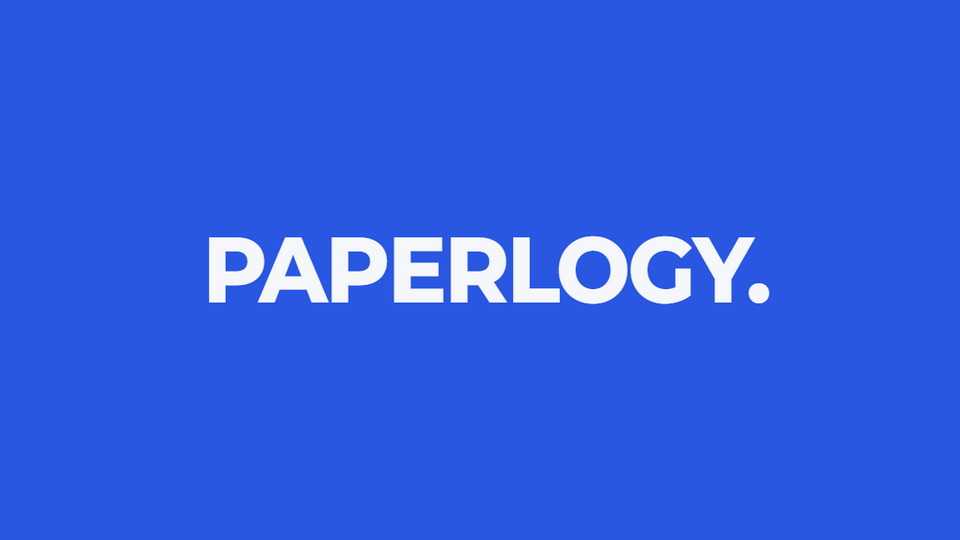
Download Paperlogy font, a hybrid typeface that ensures a harmonious and professional look across multilingual content. Its seamless integration of scripts makes it perfect for global presentations.
Designer: Lee Juim